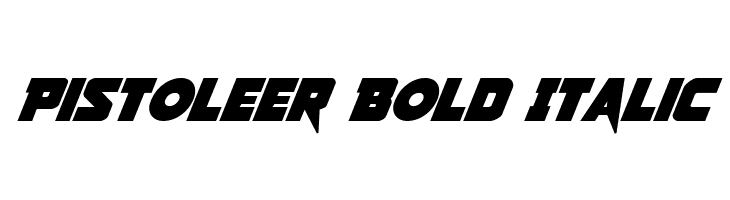
A bold, italicized font with sharp angles and high contrast, perfect for dynamic designs.
A bold, condensed, and italicized font with a futuristic and angular design.